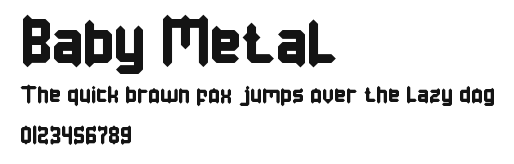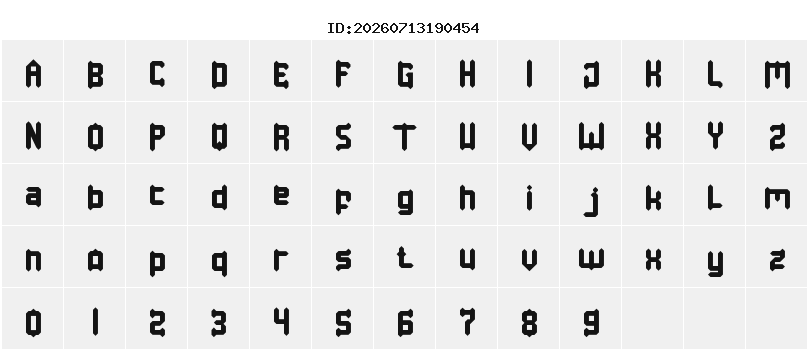
• Font Name: Baby Metal
• Full Font Name: Baby Metal
About Baby Metal.ttf
Baby Metal.ttf is a modern, elegant sans-serif font designed for ultimate readability and visual harmony. Perfect for branding, headlines, web design, and print materials.